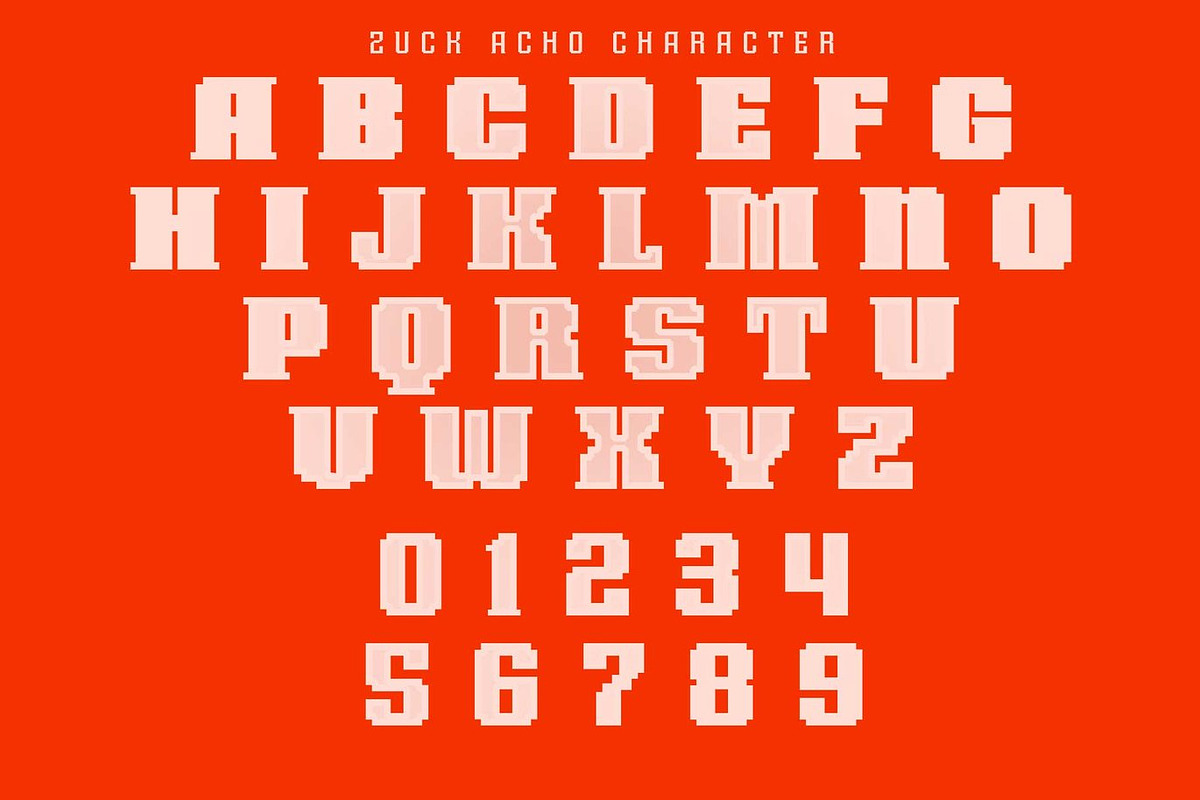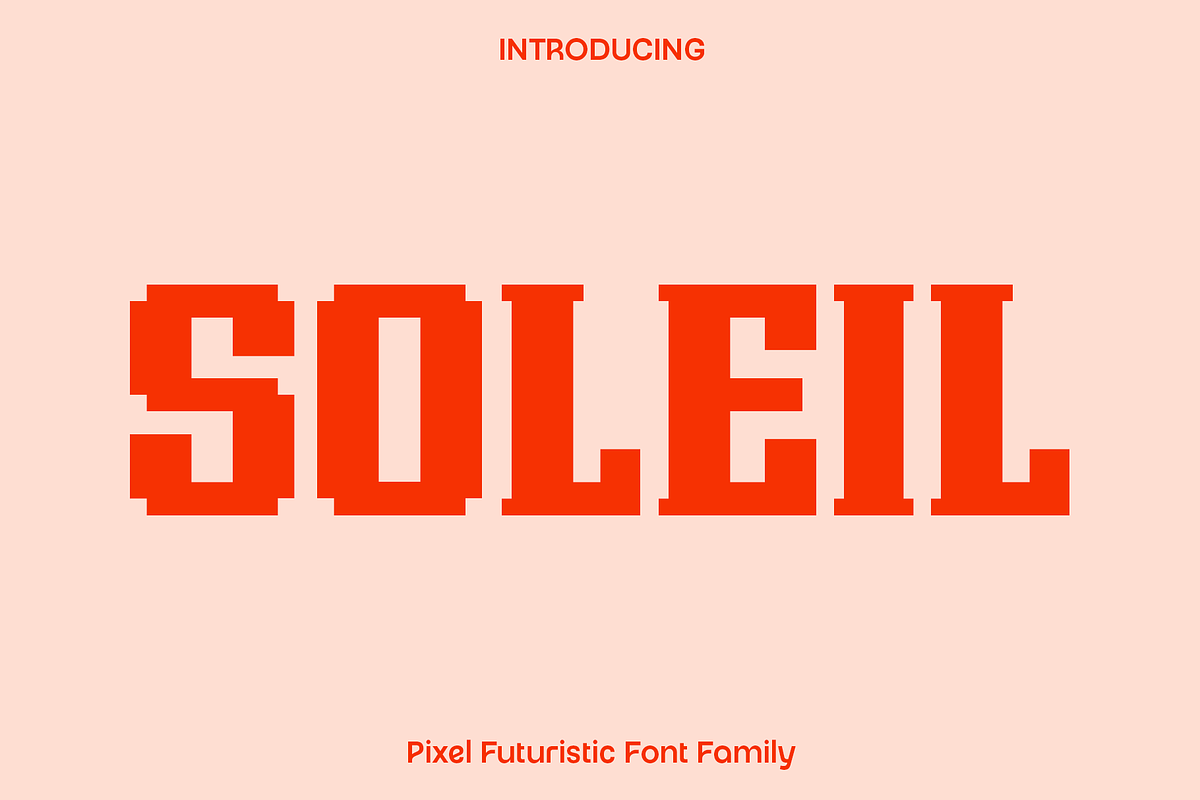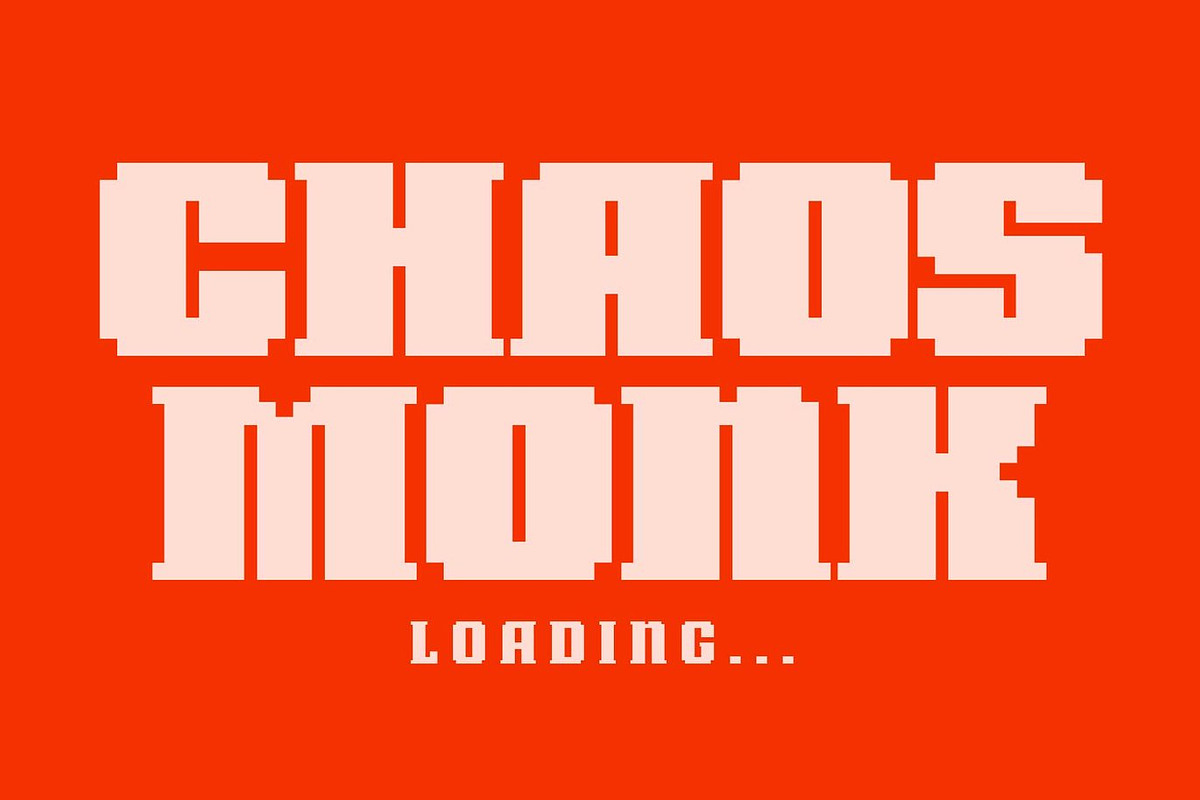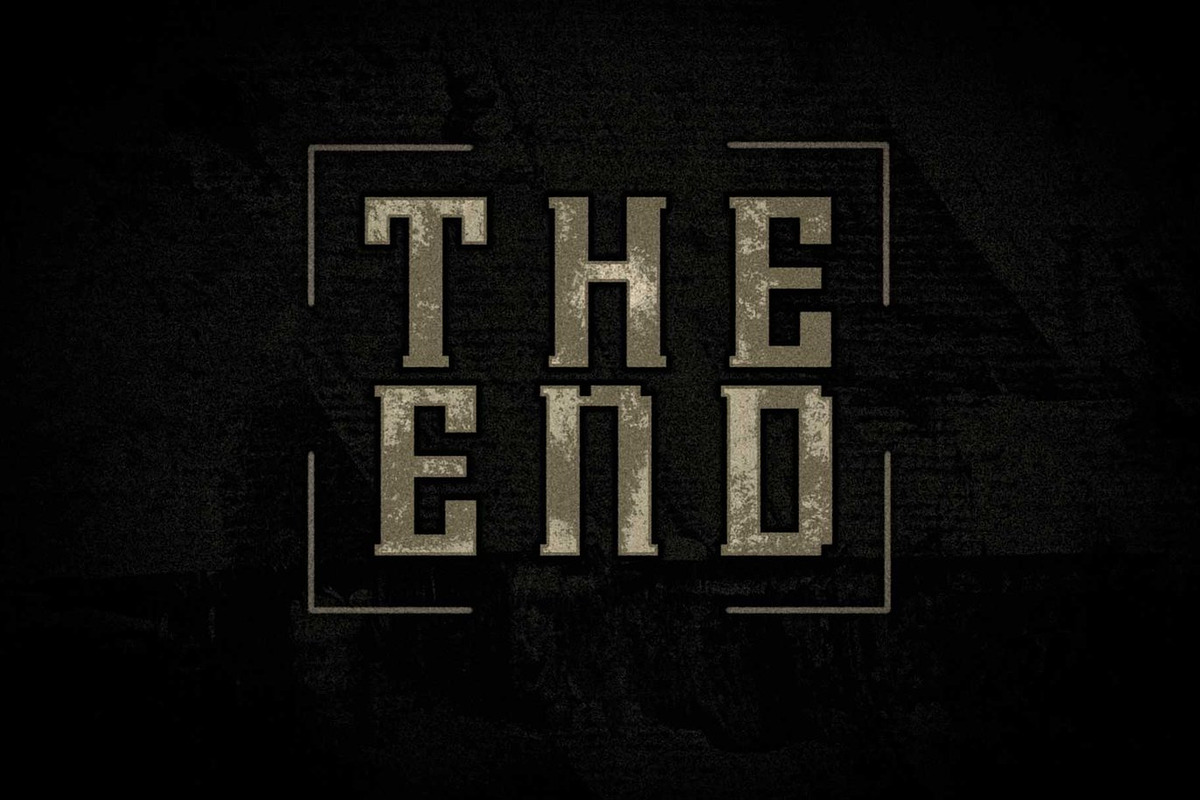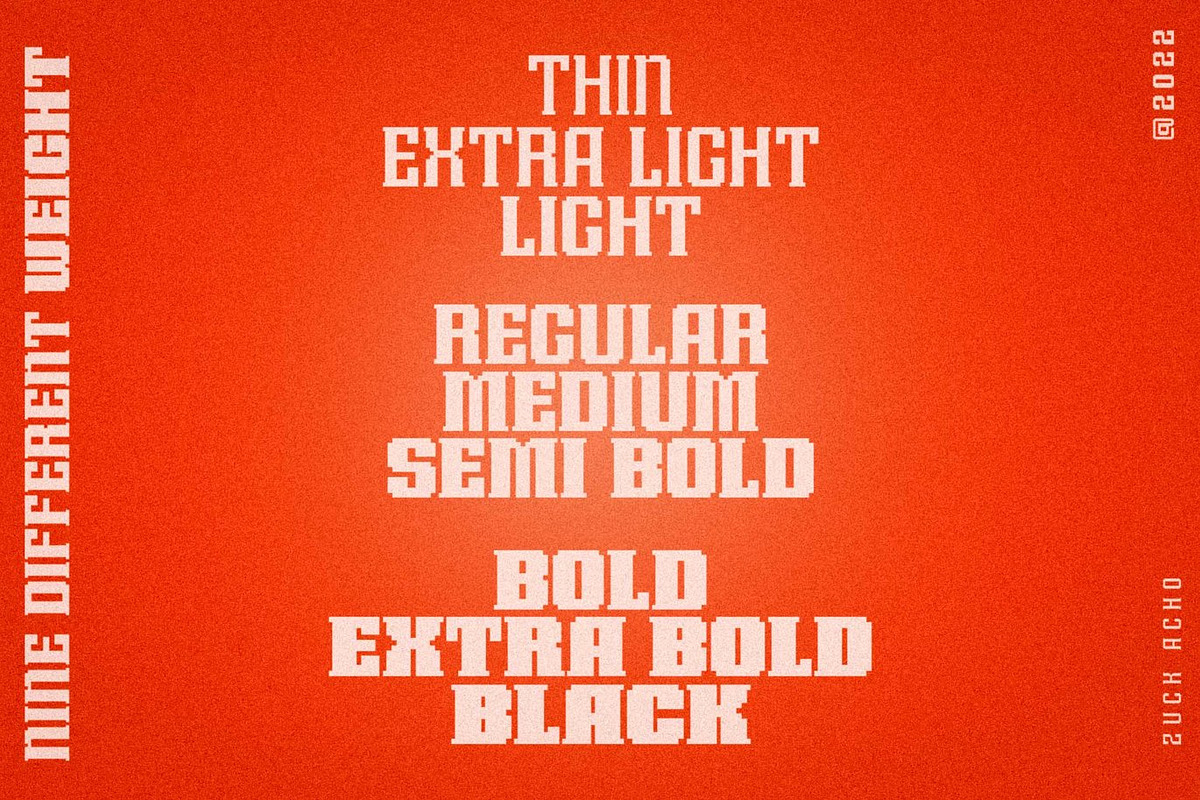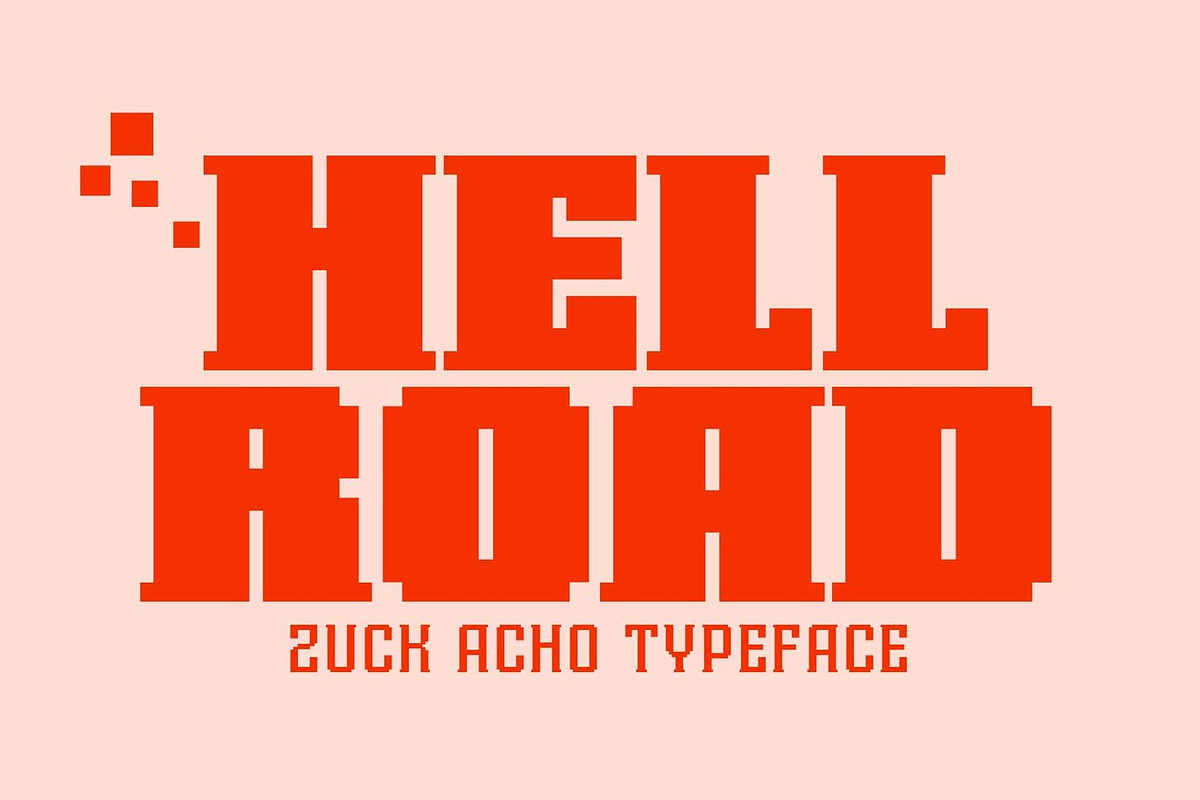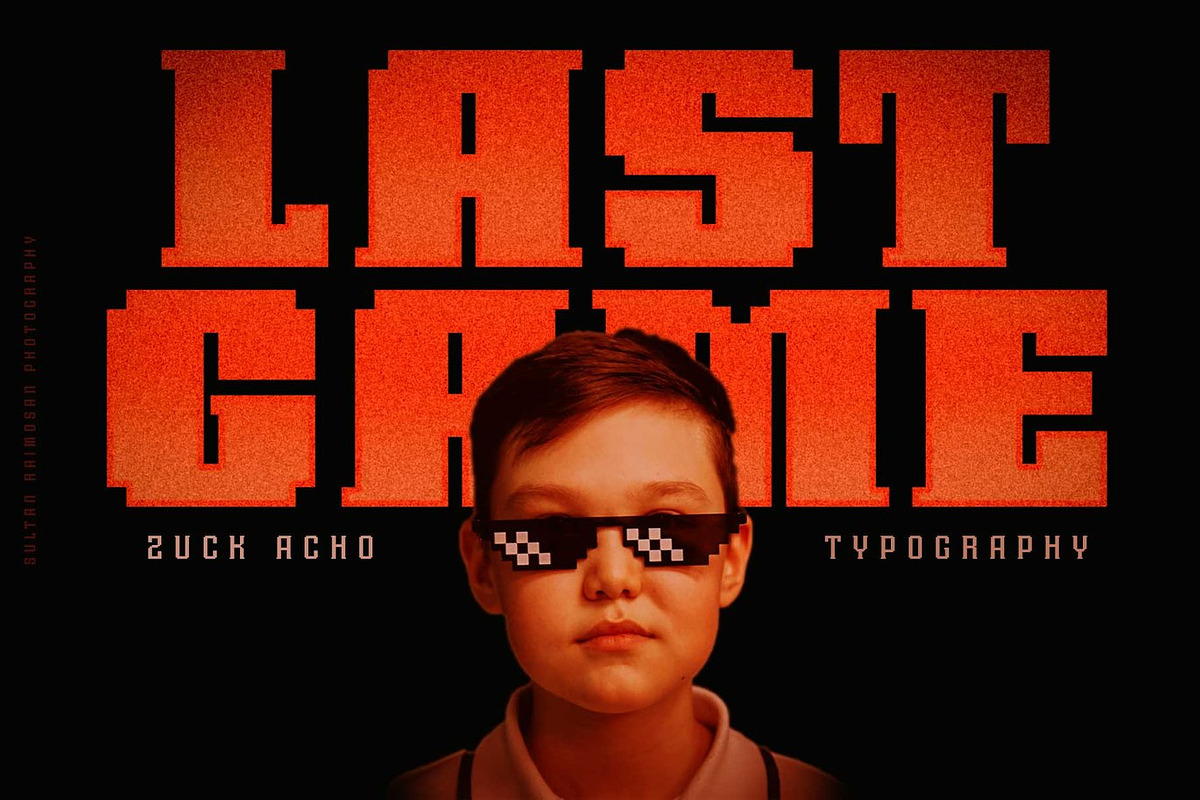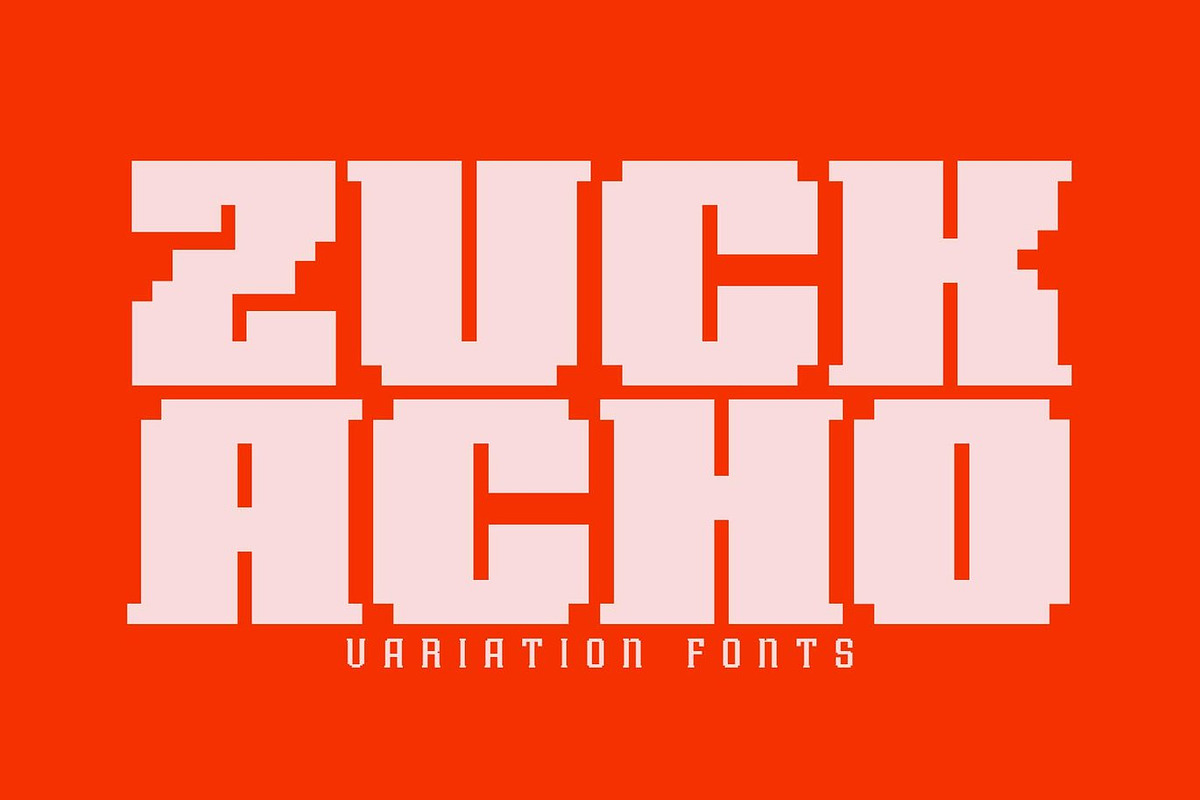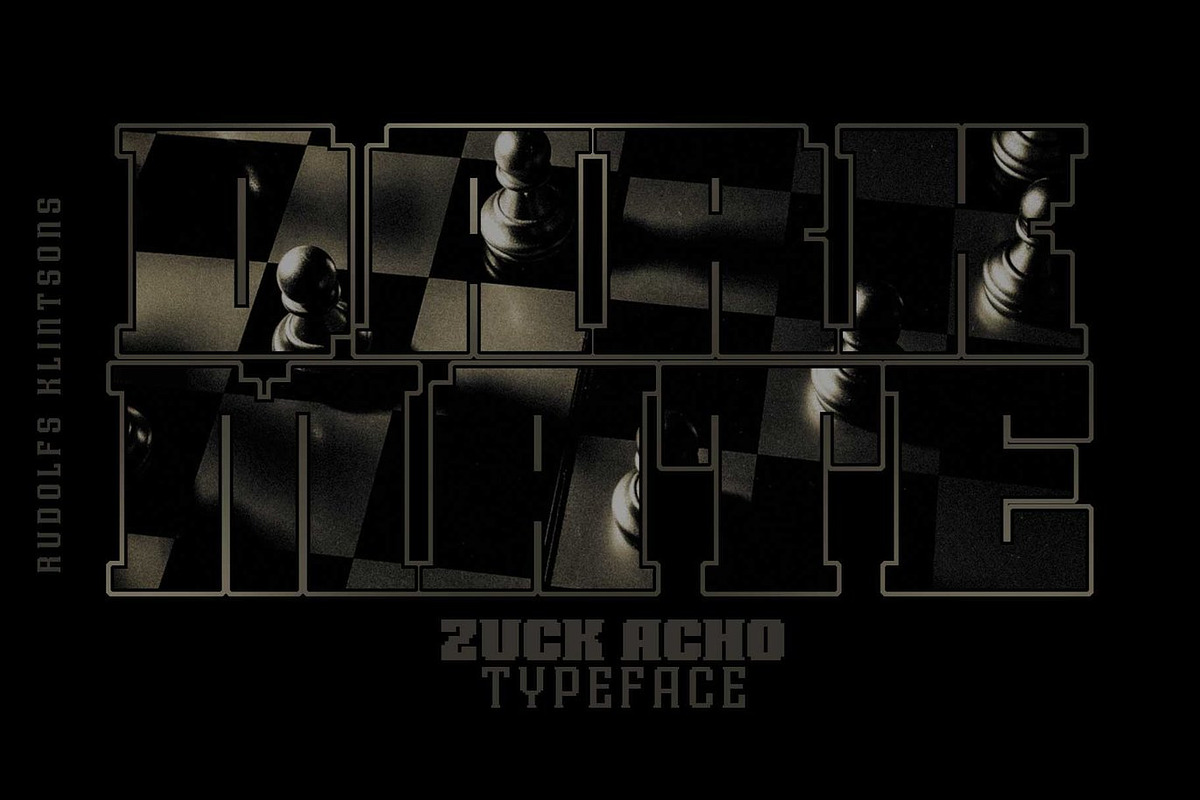
Soleil - Pixel Futuristic Family
Soleil is a modern pixel inspired font family designed to bring a unique digital atmosphere into your creative projects. Combining futuristic aesthetics with bold geometric structures, Soleil delivers a fresh visual style that feels modern, experimental, and highly versatile. Every glyph is carefully crafted with subtle pixel details, creating a distinctive character that instantly stands out while maintaining excellent readability.
Inspired by retro digital visuals, gaming culture, and modern technology trends, Soleil blends nostalgic pixel influences with contemporary typography design. The result is a font family that feels both futuristic and timeless, making it perfect for designers who want to create eye catching visuals with a strong creative identity.
Soleil shines beautifully in gaming graphics, technology branding, esports projects, posters, user interfaces, digital products, logos, movie titles, social media visuals, and futuristic editorial layouts. Its clean pixel inspired style adds energy and originality to every design while giving your typography a modern and innovative personality.
This font family includes a wide range of weights, allowing you to create flexible and dynamic typography systems for different design needs. Whether you need thin elegant text or bold impactful headlines, Soleil adapts seamlessly across both digital and print applications.
Soleil Font Family Features: • Pixel inspired futuristic design
• Clean geometric letterforms
• Includes multiple font weights
• Uppercase and lowercase characters
• Numerals and punctuation
• Modern digital aesthetic
• Perfect for gaming, technology, branding, and posters
• Suitable for both print and digital projects
Included Font Weights:
• Soleil Thin
• Soleil ExtraLight
• Soleil Light
• Soleil Regular
• Soleil Medium
• Soleil SemiBold
• Soleil Bold
• Soleil ExtraBold
• Soleil Black
Soleil is the perfect typeface for creators who want to add a modern pixel inspired touch and futuristic energy into their typography collection.